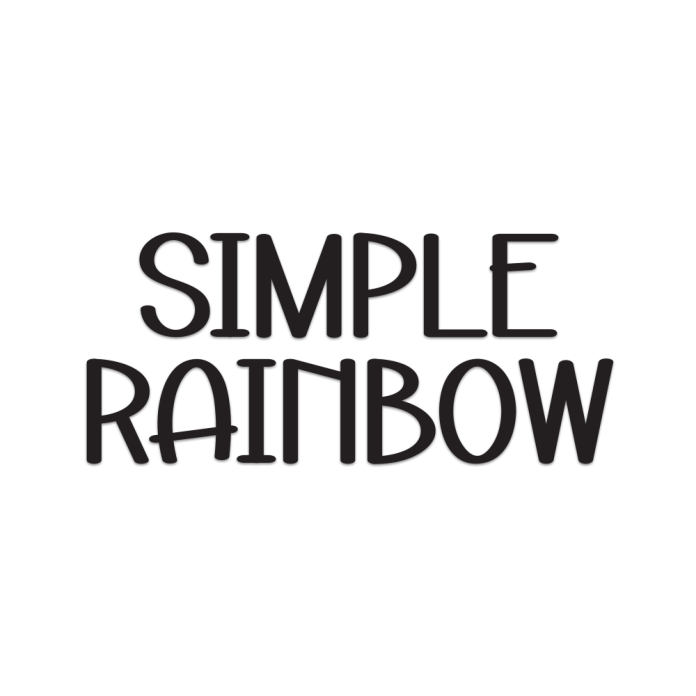
Simple Rainbow is a delightful display font inspired by the colorful charm of rainbows. Its rounded, cheerful letterforms bring happiness and imagination to any design, making it ideal for playful projects.
From children’s invitations to creative branding and whimsical logos, Simple Rainbow adds a splash of color and positivity to your text.
Bold, rounded display style
Inspired by rainbow themes and joyful moods
Great for kids’ content, posters, packaging, and social media
Bring a touch of sunshine and color to your designs with Simple Rainbow.